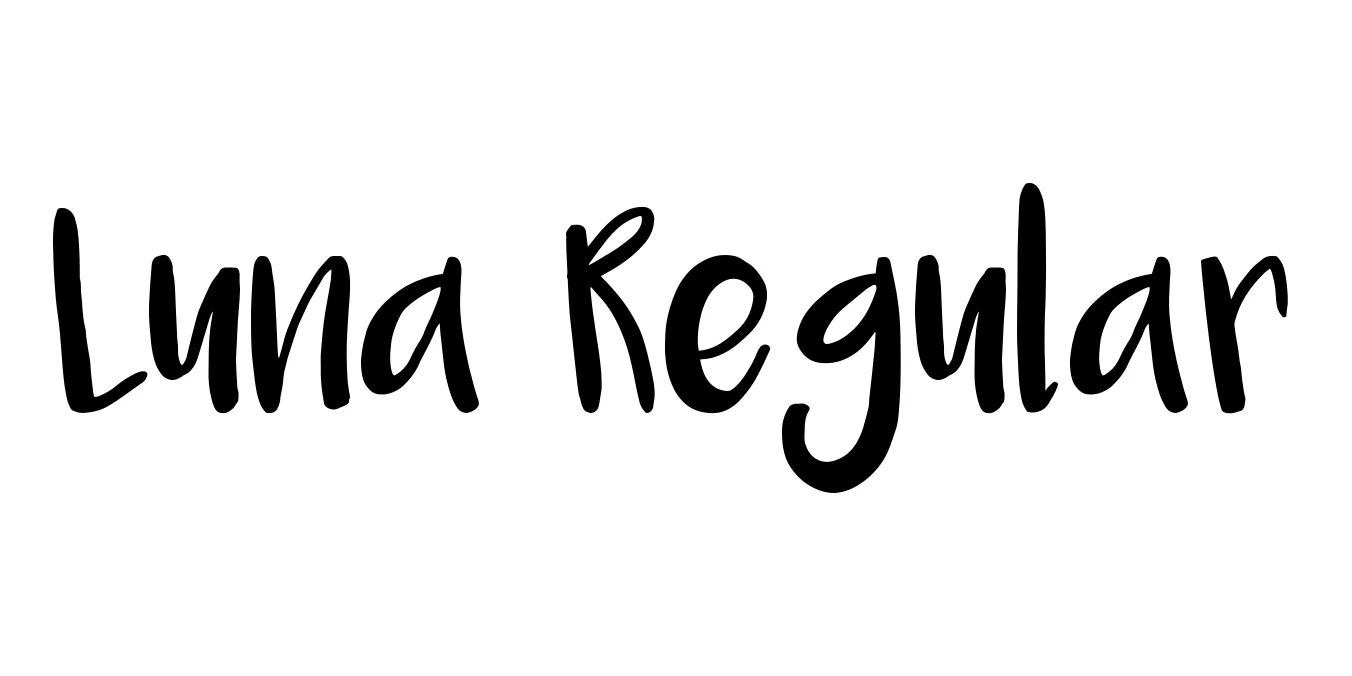
Luna Regular
Designed by Amanda Leeson
| Font Name | Luna |
| Category | Handwritten |
| Designer | Amanda Leeson |
| Similar Fonts | Amatic SC, Indie Flower, Magnolia Sky |
Luna Regular is a contemporary handwritten typeface that stands out for its simplicity and playful rhythm. Designed by Amanda Leeson, this font captures the essence of casual penmanship while maintaining excellent legibility, making it an ideal choice for projects that require a touch of modern elegance and a friendly personality.
The font features clean lines and a balanced weight that performs exceptionally well in both print and digital environments. Whether used for minimalist branding, artistic overlays, or personalized stationery, Luna Regular provides a versatile aesthetic that resonates with audiences seeking an organic, handcrafted feel in their visual communications.
Luna Regular Best Uses
Excellent for artisanal logos and personal brand identities.
Ideal for wedding invitations, greeting cards, and postcards.
Perfect for creating engaging quotes and lifestyle graphics on Instagram.